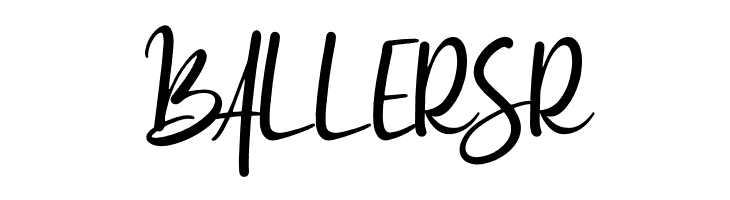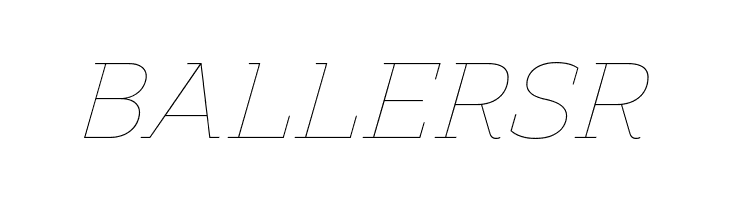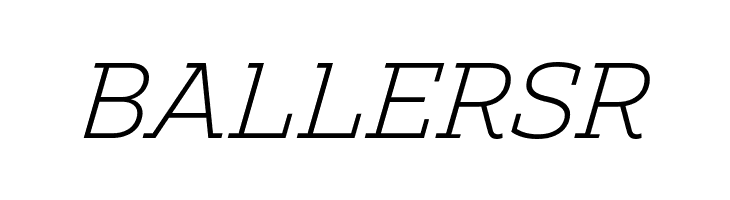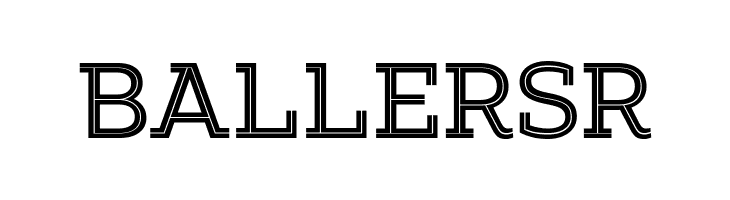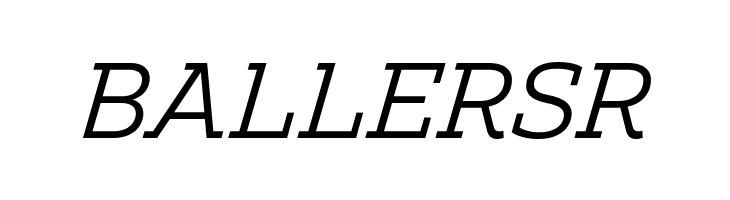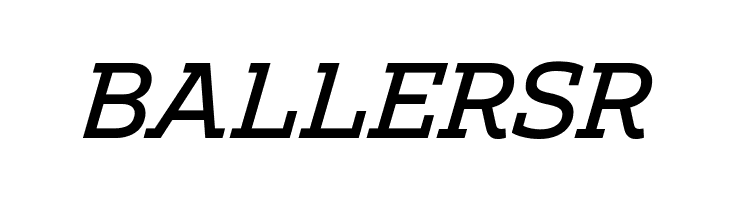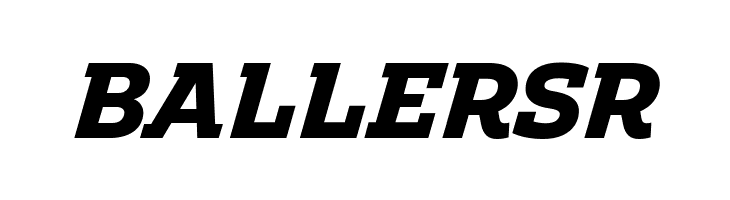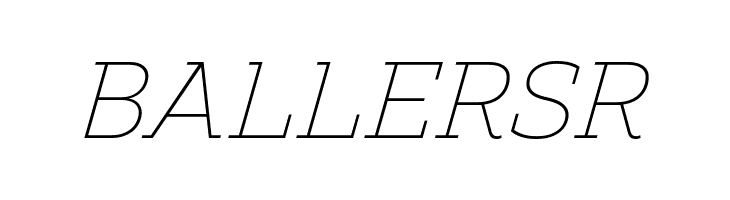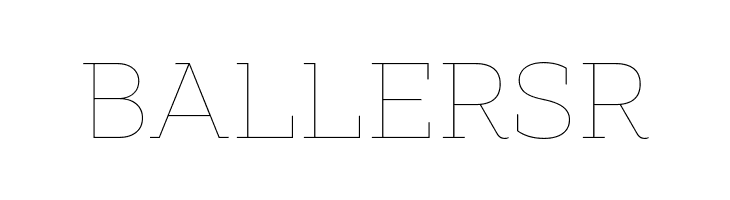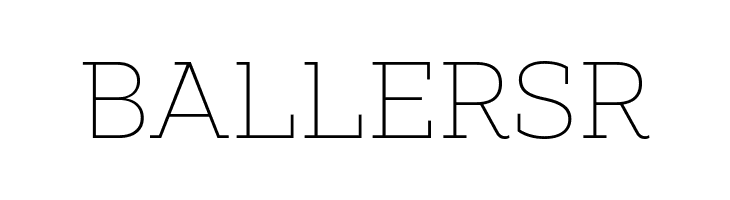
• Amazing Mother
A playful and fluid script font with smooth, connected letters.
• Amazing Mother
A lively, flowing script font with smooth, cursive strokes and playful loops.
• Amazing Ruler
A playful and dynamic handwritten font with fluid, organic letterforms.
• Amazing Slab Trial Black
A bold slab serif font with strong, block-like serifs and consistent stroke width.
• Amazing Slab Trial Black Italic
Bold, italic slab serif with a strong, dynamic presence.
• Amazing Slab Trial Bold
A bold slab serif font with strong, block-like serifs and a modern yet classic style.
• Amazing Slab Trial Bold Italic
Bold, italic slab serif font with strong, dynamic strokes.
• Amazing Slab Trial Extrabold
A bold slab serif font with strong, block-like serifs for impactful text.
A bold, italic slab serif font with high contrast and modern appeal.
• Amazing Slab Trial Extralight
A modern, elegant font with thin, uniform strokes and geometric shapes.
A sleek, elegant italic font with thin, elongated characters and a modern aesthetic.
• Amazing Slab Trial Inline Black
A bold slab serif font with a modern inline design.
• Amazing Slab Trial Inline Bold
Bold slab serif font with unique inline detailing.
Bold slab serif font with inline detailing for a modern, decorative look.
• Amazing Slab Trial Inline Medium
A bold slab serif font with unique inline detailing.
• Amazing Slab Trial Italic
A modern italic font with smooth curves and a dynamic appearance.
• Amazing Slab Trial Light
A modern slab serif font with a light weight and elegant design.
• Amazing Slab Trial Light Italic
A light, italic font with a modern and elegant style.
• Amazing Slab Trial Medium
A robust slab serif font with strong, consistent strokes and excellent legibility.
• Amazing Slab Trial Medium Italic
A medium weight, italic slab serif font with a modern and elegant style.
• Amazing Slab Trial Regular
A robust slab serif font with bold, structured characters and a modern yet classic appeal.
• Amazing Slab Trial Thin
A thin, geometric font with a clean and modern design.
• Amazing Slab Trial Thin Italic